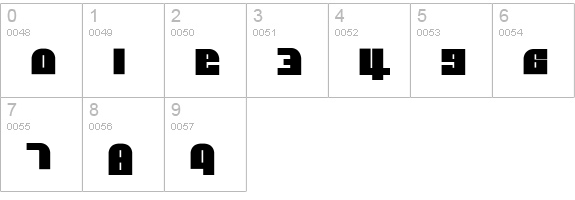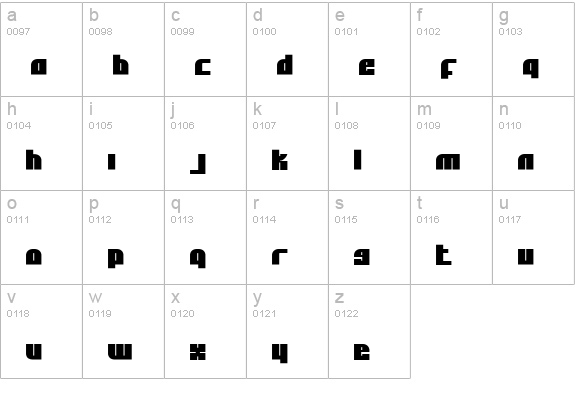
Alpha Flight Solid Small Caps Font Details
Alpha Flight Solid Small Caps is a sleek and modern font that exudes professionalism and sophistication. With its clean lines and bold design, this typeface is perfect for creating a powerful visual impact in your projects. The small caps style adds a touch of elegance and refinement, making it ideal for a wide range of design applications. What sets Alpha Flight Solid Small Caps apart is not only its striking appearance but also the fact that it is available for free download at FontsMarket.com. This means you can easily access this high-quality font without any cost, making it a valuable addition to your design toolkit. Whether you're working on branding, advertising, or any other creative project, Alpha Flight Solid Small Caps is sure to make a statement and elevate your designs to the next level.